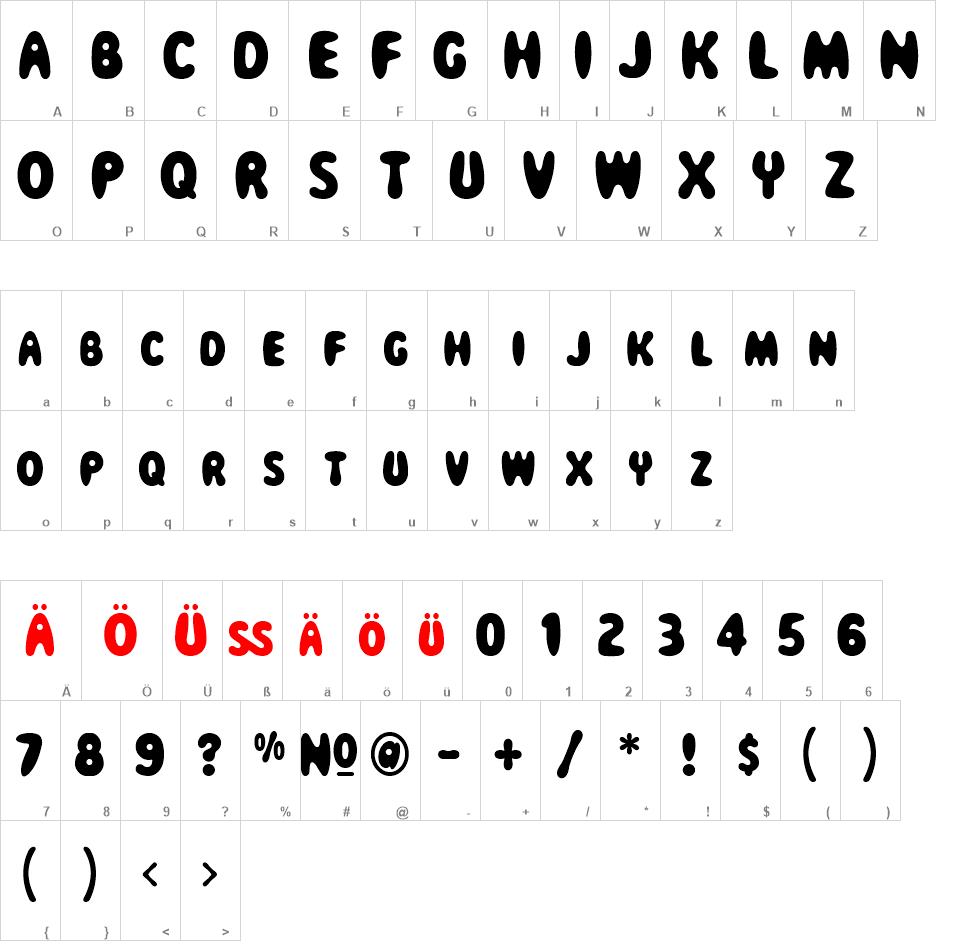
Magical Mystery Tour
Magical Mystery Tour, Plain and Outline Shadow, are two fonts based on the lettering used for the Beatles’ Magical Mystery Tour record sleeve of 1967.